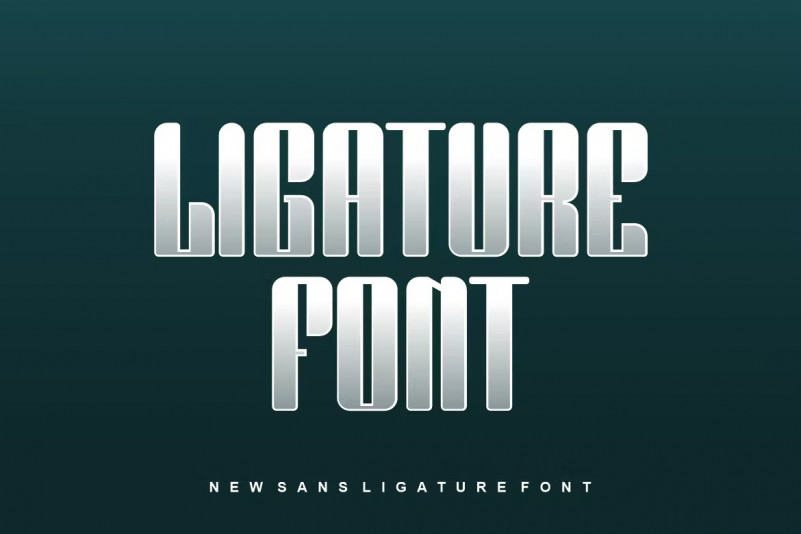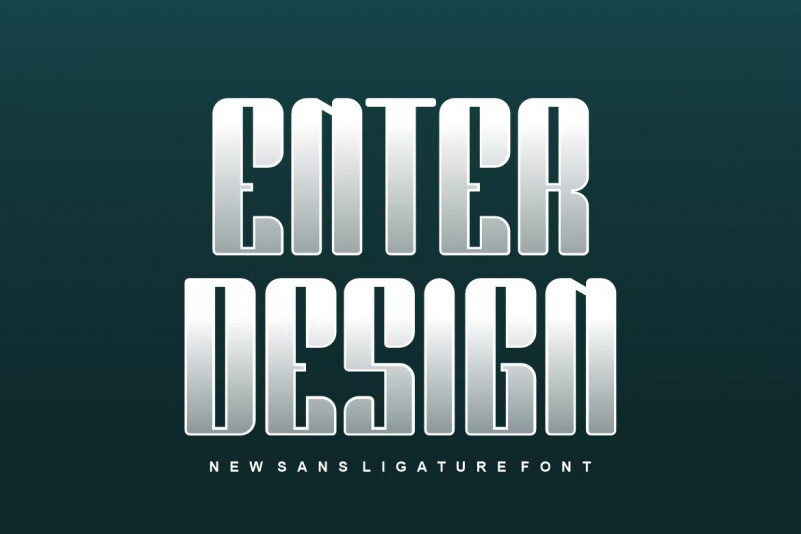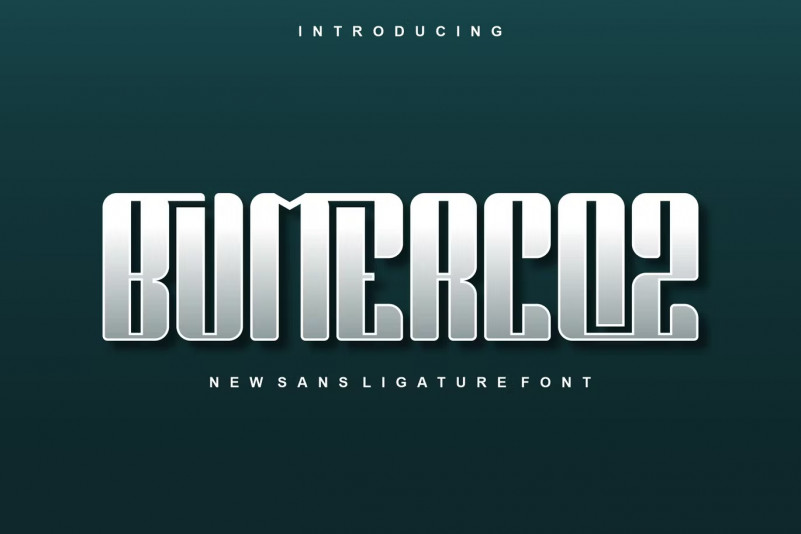
Bumercoz Font
Introducing our new product Bumercoz Font – Modern Font
Bumercoz Font – Modern Font is a bold and authentic display font. The font is suitable for any branding project like logo, t-shirt printing, esport, and many more. outstanding in a wide range of contexts.